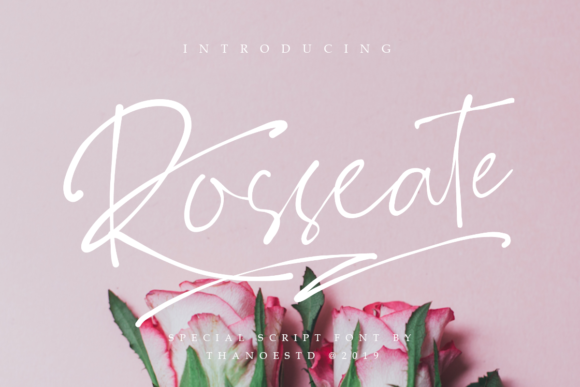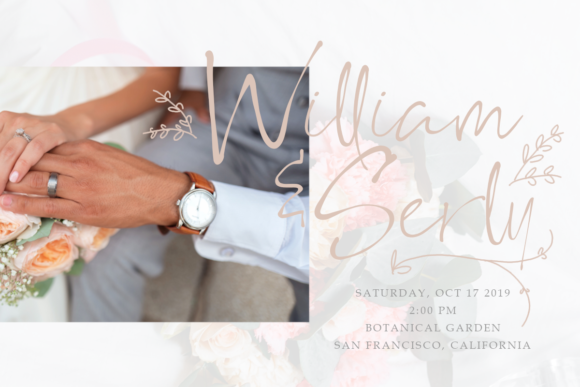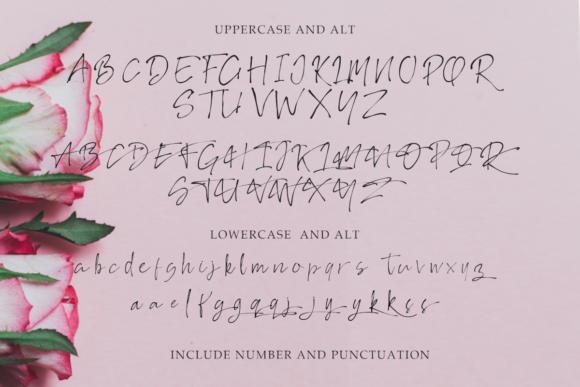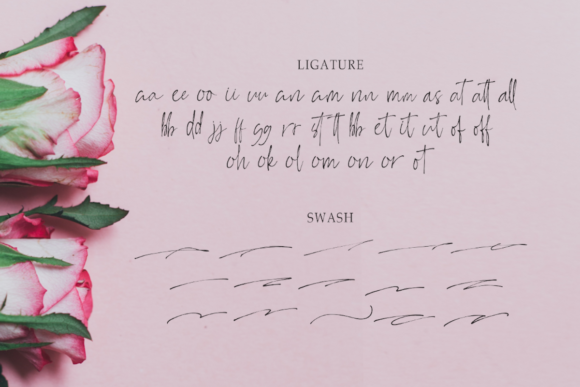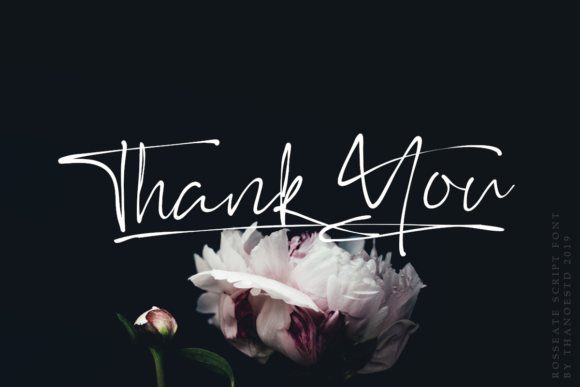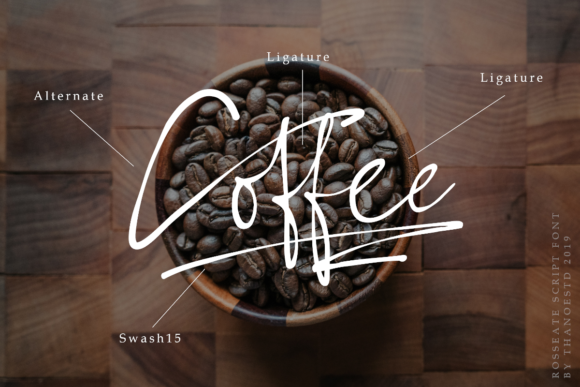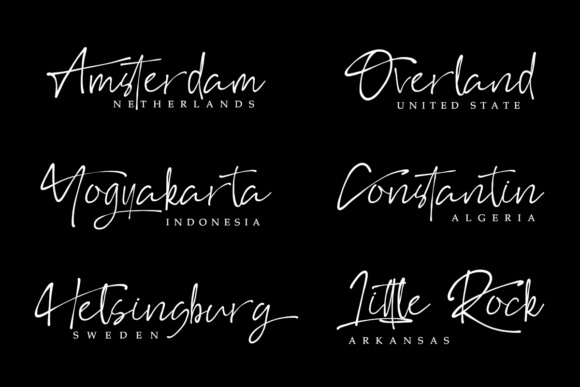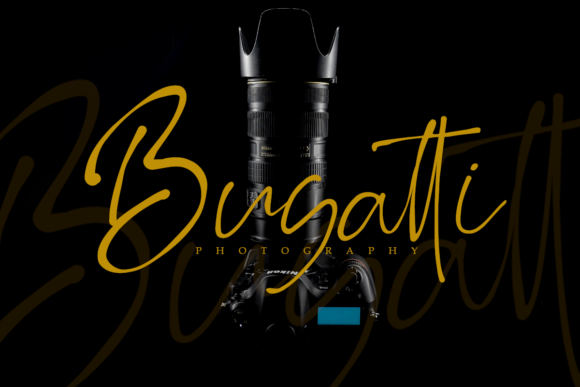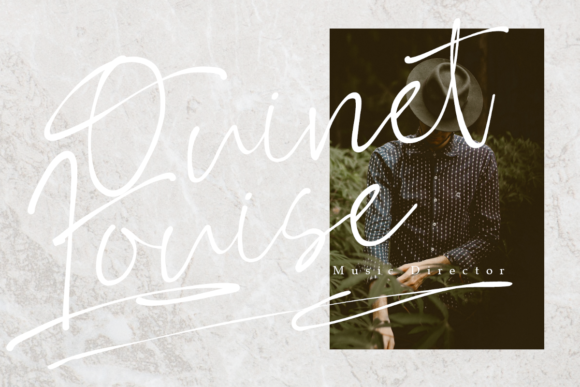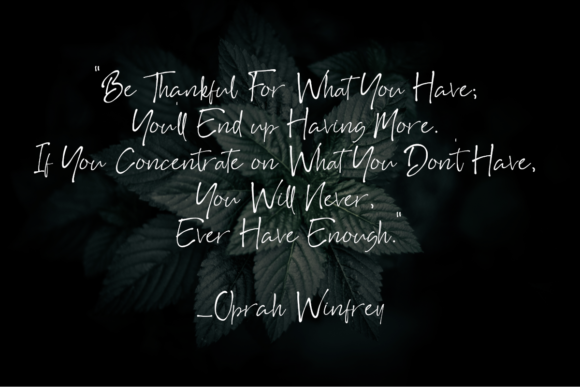
Rosseate Font
About Rosseate Font
Rosseate is an equally stylish and authentic script that will add a personal feel to any design idea. Get inspired by its bold vibe!